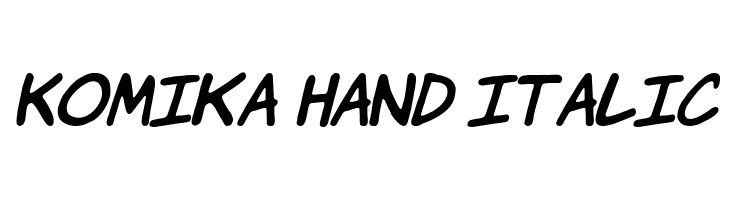
A bold, playful handwritten font with rounded strokes and a casual style.
A bold, hand-drawn font with a playful, comic book style.
A bold, italicized handwritten font with a playful and dynamic style.
A bold, italic, handwritten font with a playful and casual style.
A playful, handwritten font with bold, rounded strokes and a dynamic slant.
A playful, comic-style handwritten font with a bold, italicized look.
A playful, bold, and handwritten-style font with a casual and friendly appearance.
A bold, comic-style font with a playful and hand-drawn appearance.
A bold, italicized, handwritten-style font with a playful and dynamic appearance.
A bold, italicized handwritten font with a playful and dynamic style.